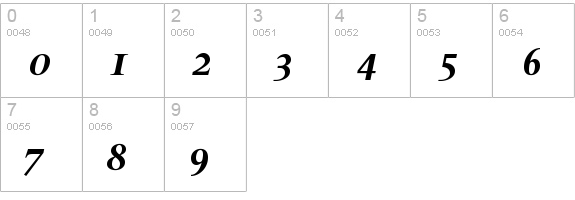
LeMondeLivre Bold Italic Oldstyle Figures is a strong, high-contrast, italic variant in the LeMondeLivre typeface family \xE2\x80\x94 well suited to headlines, attention-grabbing titles, and strong calls-to-action.
LeMondeLivre Bold Italic Oldstyle Figures font is a stunning and elegant typeface that exudes sophistication and grace. It effortlessly combines the boldness of its weight with the graceful curves of the italic style, creating a harmonious blend that is visually striking. The Oldstyle Figures in this font add a touch of vintage charm, reminiscent of classic typography from years gone by. The numbers have a timeless quality that adds a unique character to any design or project. What sets LeMondeLivre Bold Italic Oldstyle Figures font apart is not just its beauty, but also its versatility. It is suitable for a wide range of applications, from editorial design and branding to web design and advertising. Its legibility and readability make it ideal for long blocks of text, while its boldness and elegance make it perfect for headlines and titles. And the best part? LeMondeLivre Bold Italic Oldstyle Figures font is available for free download at FontsMarket.com. Yes, you read that right – this stunning typeface can be yours without spending a penny. So why wait? Download LeMondeLivre Bold Italic Oldstyle Figures font today and add a touch of sophistication to your designs.